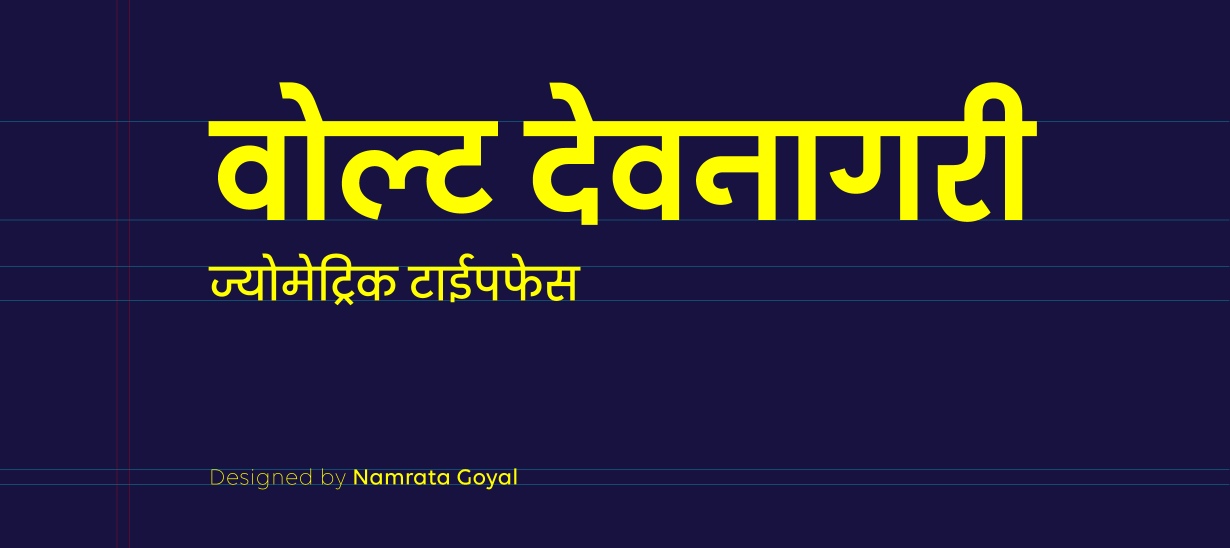
Volte Devanagari Font
Volte Devanagari Font is perfect for Indian cultural branding, multilingual corporate identities, South Asian publishing projects, Hindi-language web interfaces, educational materials for Indian languages, cultural center communications, international business applications, and cross-cultural advertising campaigns. This sophisticated typeface works beautifully in both digital applications and print media where cultural authenticity and international accessibility are essential design considerations.
What makes Volte Devanagari Font so exciting is its masterful interpretation of traditional Devanagari script through contemporary letterforms that honor the rich heritage of Sanskrit and Hindi typography while optimizing for modern digital applications. The font features elegantly crafted characters with authentic proportions, cultural curves, and refined details that maintain the sacred geometry and artistic beauty of traditional Indian calligraphy. Its culturally respectful personality and international design make it ideal for brands seeking to communicate genuine cultural appreciation while serving diverse multilingual audiences who value both tradition and contemporary functionality.
The Volte Devanagari Font family includes comprehensive weight variations from light to bold, along with matching italic styles and culturally appropriate alternates. Each style maintains the typeface's authentic character while offering extensive language support for Hindi, Sanskrit, Marathi, and other Devanagari-based languages, traditional numerals, culturally-inspired punctuation marks, and special symbols designed to enhance South Asian communications and international branding efforts across diverse cultural markets.
This remarkable typeface represents the perfect fusion of cultural heritage and contemporary typography for international and educational industries. Whether you're developing multilingual brand identities, creating educational content for Indian languages, or designing cross-cultural business communications, Volte Devanagari Font Free Download provides the cultural authenticity and versatility needed to bridge diverse linguistic communities. The font's respectful approach makes it particularly effective for educational institutions, international corporations, cultural organizations, and businesses serving South Asian communities worldwide.
The meticulously crafted cultural accuracy and optimized multilingual performance in Volte Devanagari Font ensure both authentic elegance and clear communication across all Indian language applications. Its sophisticated presence makes it perfect for cultural branding, multilingual marketing materials, and educational communications where its full Devanagari character can create meaningful connections with audiences who appreciate the beauty and wisdom of Indian linguistic traditions and contemporary international accessibility.